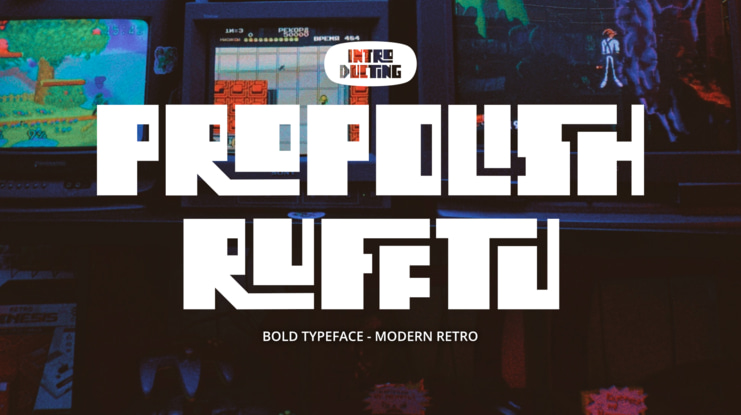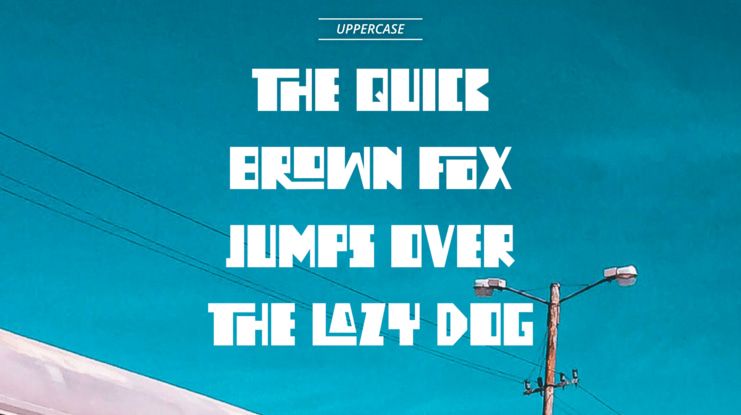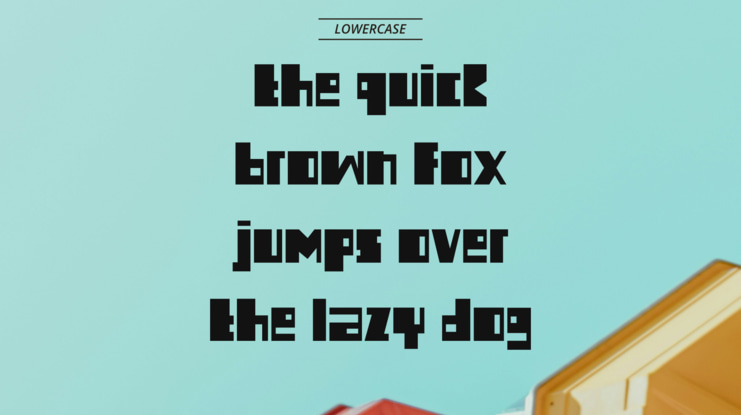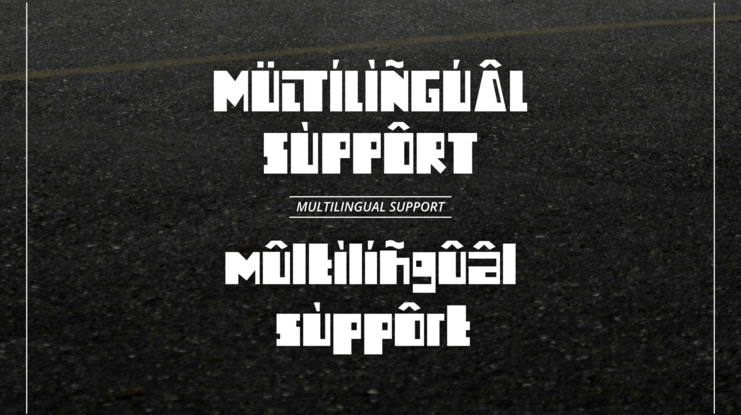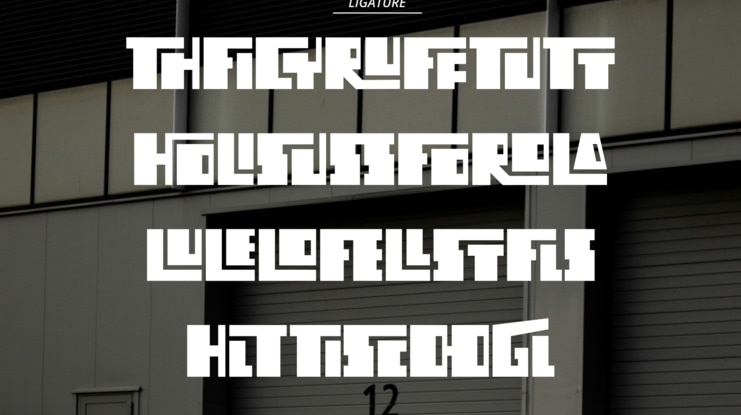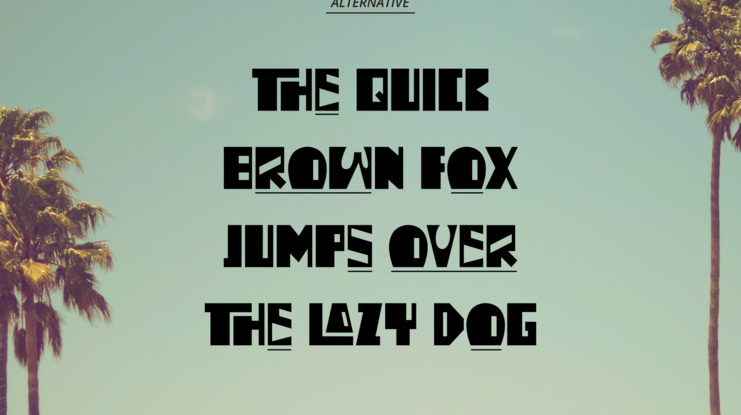
Propolish Rufftu Font
INTRODUCING PROPOLISH RUFFTU
Propolish Rufftu is a captivating display font that exudes a rugged charm. With its bold lines and distinctive letterforms, it commands attention and adds character to any design. Ideal for branding, headlines, and posters, Propolish Rufftu brings a unique and edgy aesthetic to your creative projects, making them stand out effortlessly.
Propolish Rufftu font preview